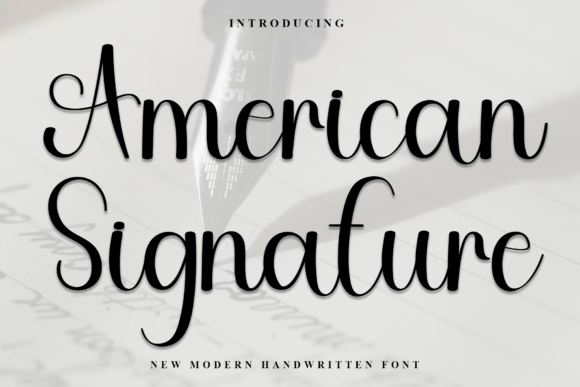
The Perfect Blend of Warmth and Whimsy: American Signature Font
As a designer, there’s nothing quite like the thrill of finding the perfect font to match your creative vision. You’re brainstorming ideas for a new project, scrolling through font libraries, and suddenly – it hits you. The perfect font that makes your design pop, and you can’t help but smile. For many designers, that font is the American Signature Font.
This charming font is designed to evoke a sense of warmth and friendliness, making it perfect for personal projects, invitations, and social media graphics. Its round, playful strokes create a relaxed and approachable feel that’s sure to connect with your audience. With its hand-drawn aesthetic, the American Signature Font adds a unique touch to any design, setting it apart from more generic fonts.
Key Features of American Signature Font
- Font Family: American Signature is a script font family designed for use in signage and wayfinding applications. It is available in several font weights and styles.
- Unique Characteristics: American Signature font features a distinctive, hand-painted look with subtle texture and imperfections, giving it a unique and authentic feel.
- Legibility: The font is designed for high legibility, making it easy to read from a distance, even in low-light conditions.
Designer Review: American Signature Font
As a designer, I was excited to dive into the American Signature Font, a typeface that promises to evoke the nostalgia of classic American signage. Here’s my honest review.
- ✨ Timeless feel: The font does indeed capture the essence of classic American signage, with a warm and inviting aesthetic that’s sure to appeal to those who love retro design.
- ✨ Versatility: American Signature Font comes in a range of weights, from light to bold, making it suitable for a variety of applications, from logos to body text.
- ✨ OpenType features: The font includes some nice OpenType features, such as ligatures and swashes, which can add an extra layer of personality to your designs.
Any limitations:
- ⚠️ Limited language support: Unfortunately, American Signature Font only includes support for a limited number of languages, which may be a drawback for designers working on multilingual projects.
- ⚠️ Not ideal for small text: While the font looks great at larger sizes, it can become difficult to read at smaller sizes, which may limit its use in certain applications.
Overall, I think American Signature Font is a solid choice for designers looking for a classic, nostalgic feel. While it may have some limitations, its timeless aesthetic and versatility make it a great addition to any design toolbox.
For best results, use the American Signature Font for titles and headings to add a touch of elegance and sophistication to your designs.
Use the American Signature Font to add a personal touch to your graphics and illustrations.
Use the American Signature Font to add a professional touch to your presentations and documents.
The American Signature Font is ideal for:
- Product labels and packaging
- Editorial and publishing materials
Remember to use the American Signature Font in moderation to avoid overwhelming your designs.